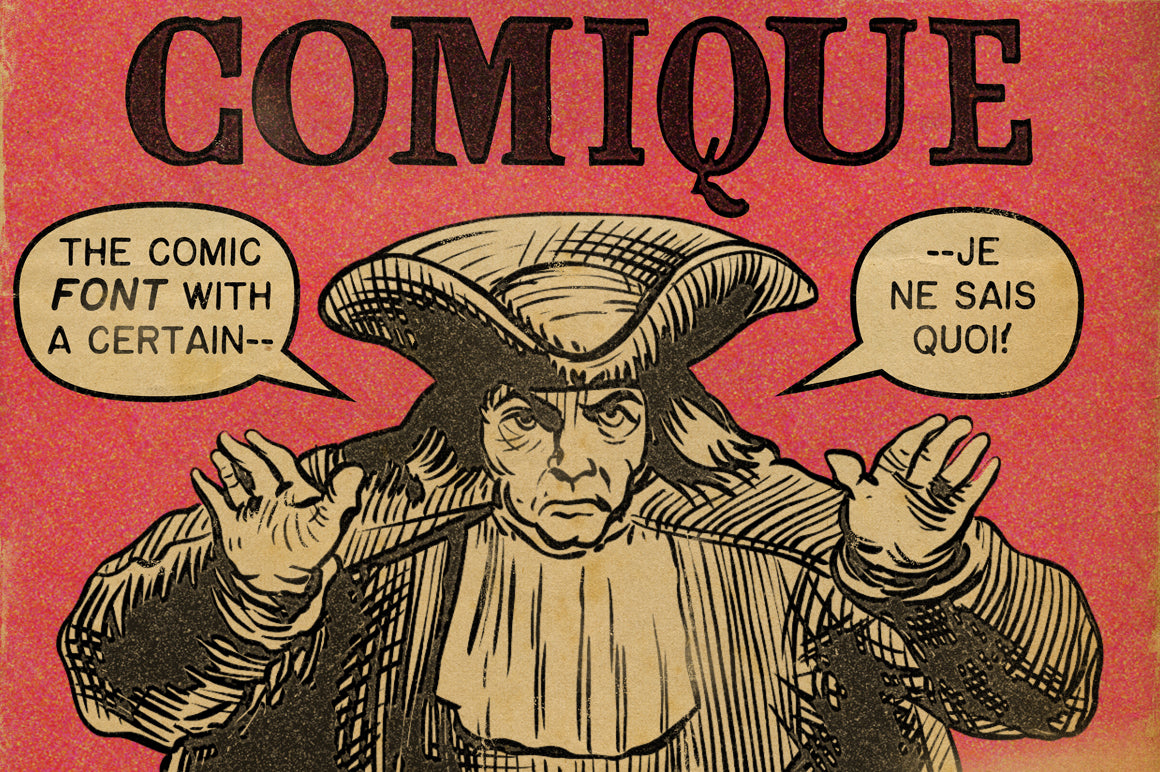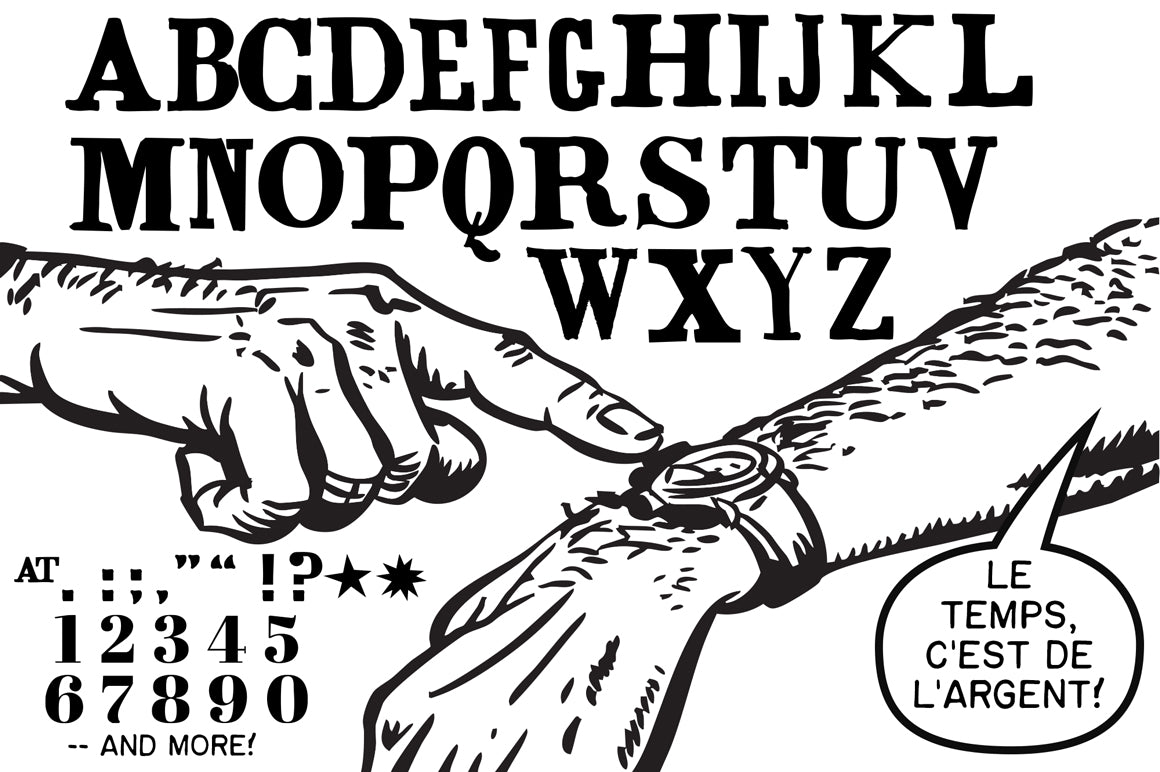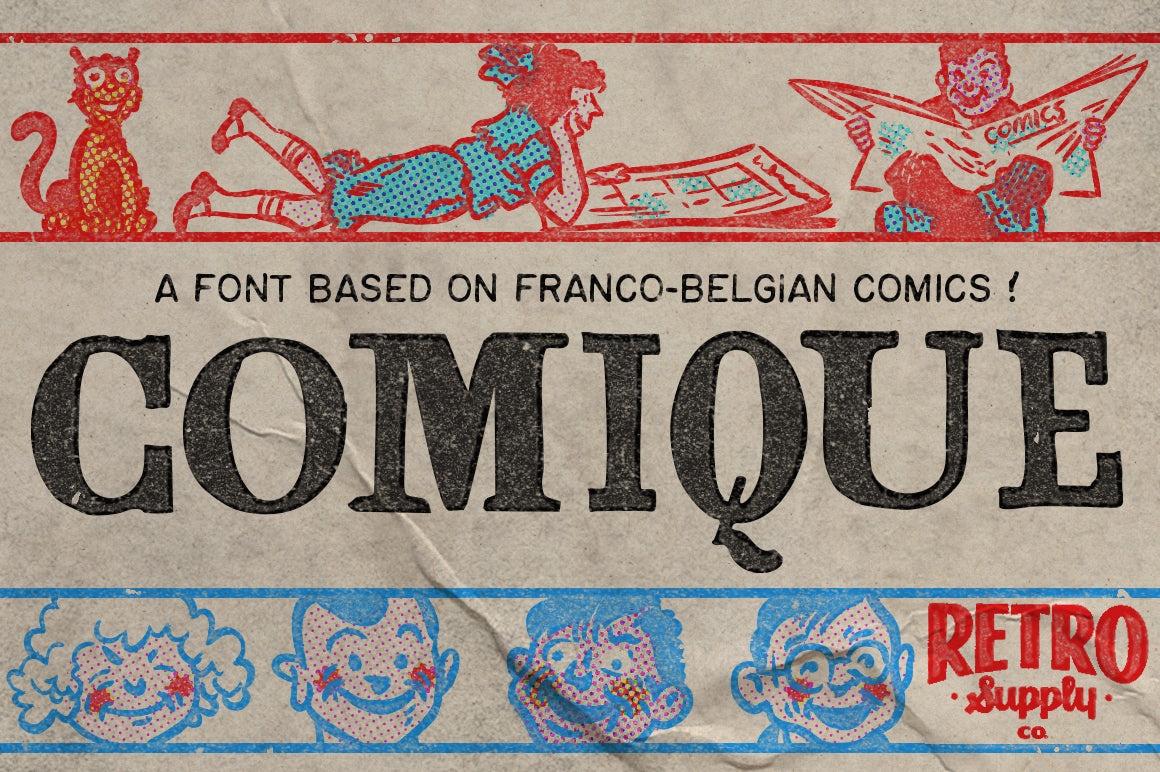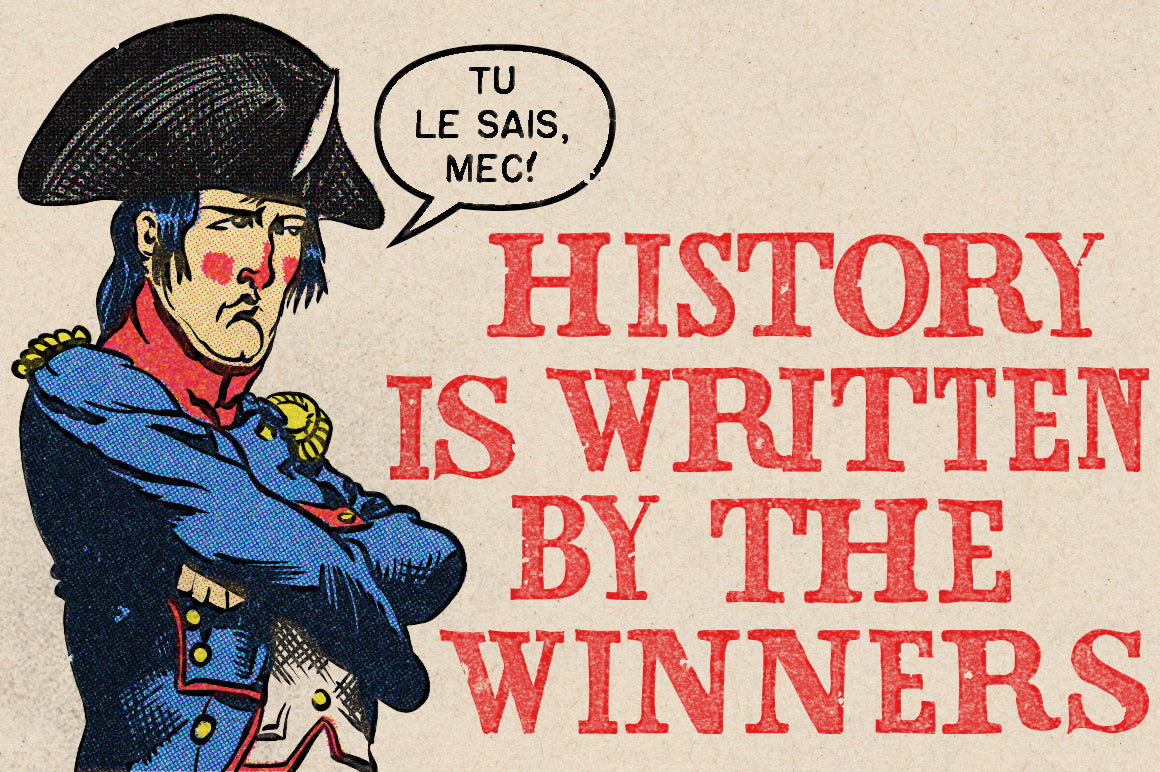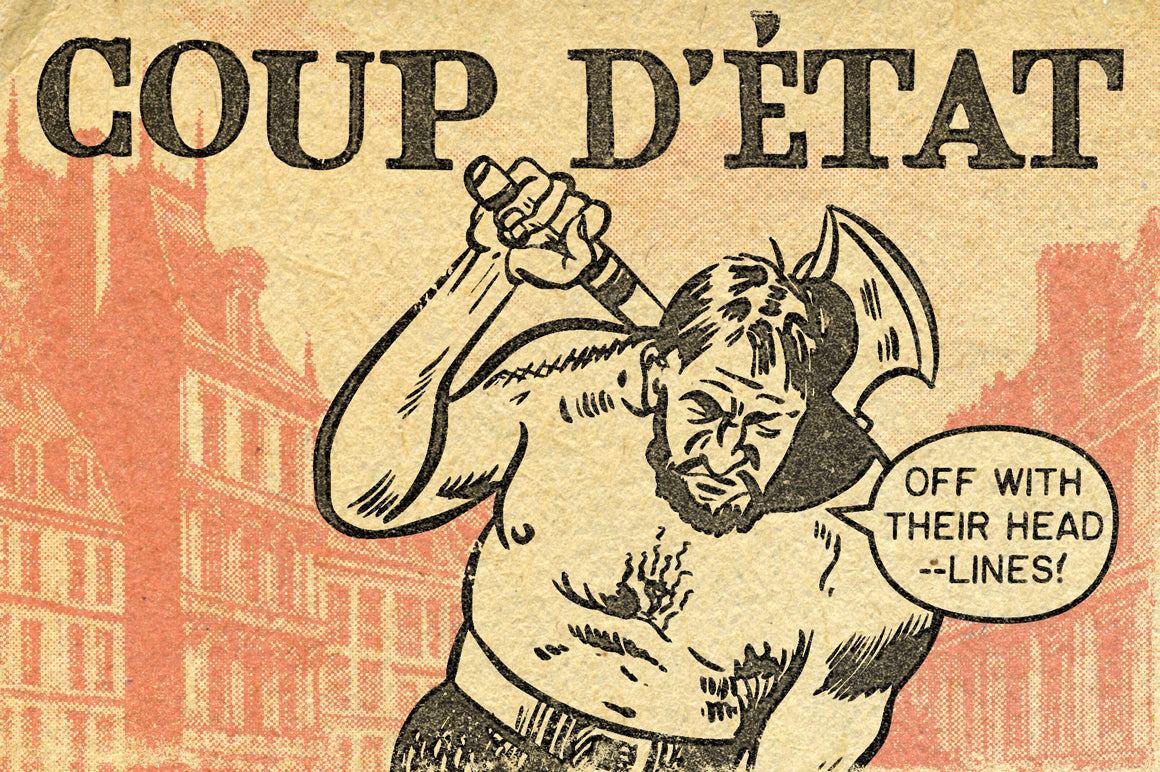
A Comic Font with Franco-Belgian Roots and Museum-Grade Credibility
Say bonjour to Comique, a typeface that’s not just drawn, but discovered. Designed in collaboration with artist, writer, and comics historian Christopher Sperandio, this bold display font is a direct typographic extraction from vintage Franco-Belgian comic books — no frills, no filler, no invented characters. Just the real deal.
Sourced from original, printed comic pages and painstakingly restored, Comique preserves the unpolished energy and charming quirks of mid-century bande dessinée, the rich comic tradition of France and Belgium. If you’ve admired the bold lettering of Tintin, the mischievous tone of Astérix, or the avant-garde chaos of Métal Hurlant, this font is your new favorite storytelling sidekick.
Whether you're illustrating comics, designing ironic posters, or channeling retro European packaging vibes — Comique lends your work unmistakable narrative texture.
- Drawn from Authentic Franco-Belgian Comics. Every glyph is based on real vintage comic samples, no fabricated letters or “guesswork” design. The limited character set is intentional, preserving the purity of the source material.
- Created by a Comics Academic and Artist, Christopher Sperandio. Known for his work across comics, gallery installations, and education, Comique was developed during his travels and research in Germany, France, Japan, and beyond.
- Perfect for Comic Art, Zines, and Posters. Ideal for ironic captions, dramatic headlines, and any project needing a dash of rebellion and historical flair.
- Is this a full character set? No, and that’s the point. Comique only includes characters that existed in the source material. No modern additions.
- Who is this font best for? Comic artists, designers, and typographic historians, anyone looking to bring a slice of authentic European comic history into their work.